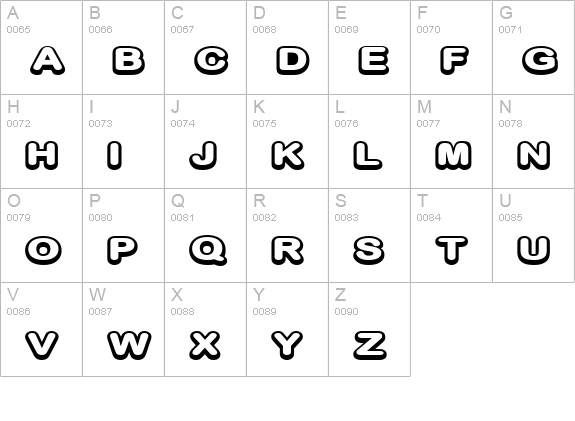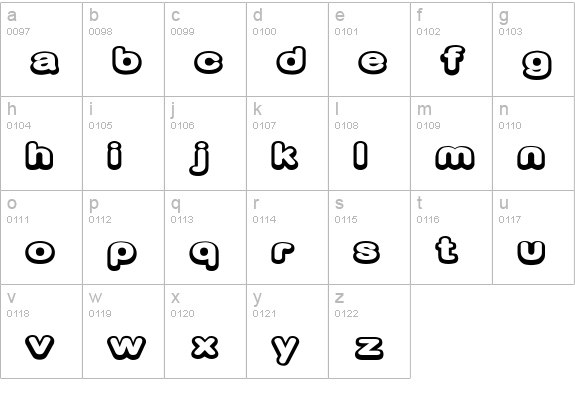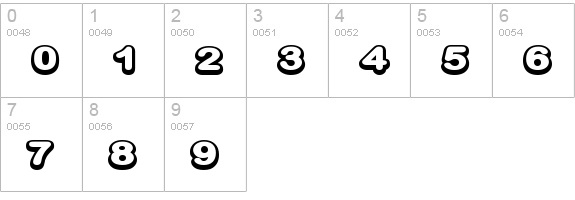
Introducing D3 Biscuitism, a delightful and delectable font that will add a touch of whimsy and playfulness to any project. This font is the perfect blend of elegance and charm, making it suitable for a wide range of creative endeavors. With its unique and eye-catching letterforms, D3 Biscuitism is sure to capture the attention of both designers and viewers alike. But what sets D3 Biscuitism apart from other fonts? Well, it's not just its irresistible charm or its versatile design. It's also the fact that D3 Biscuitism is completely free! That's right, this font can be downloaded and used without any cost whatsoever. We believe that creativity should be accessible to everyone, and that's why we are proud to offer D3 Biscuitism as a freely available font. To get your hands on this delightful typeface, simply head over to FontsMarket.com, where you can easily and conveniently download D3 Biscuitism. Whether you're a seasoned designer or just starting out, this font is the perfect addition to your creative toolkit. Use it to add a touch of whimsy to your branding, create eye-catching headlines, or bring a sense of playfulness to your next project. So why wait? Embrace the charm and elegance of D3 Biscuitism and let your creativity soar. Download this free font today and unlock a world of possibilities for your designs.